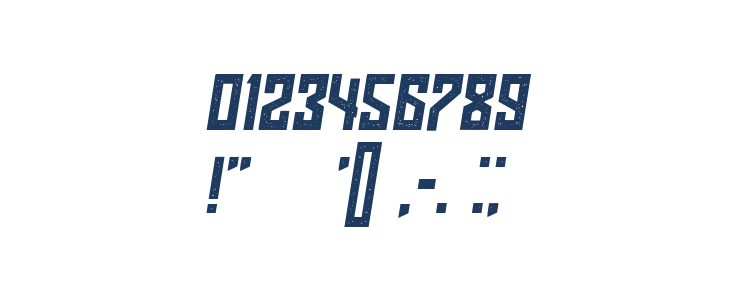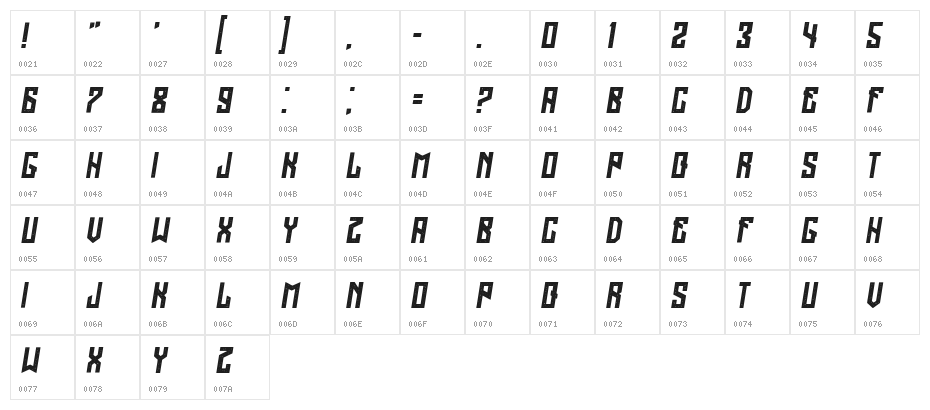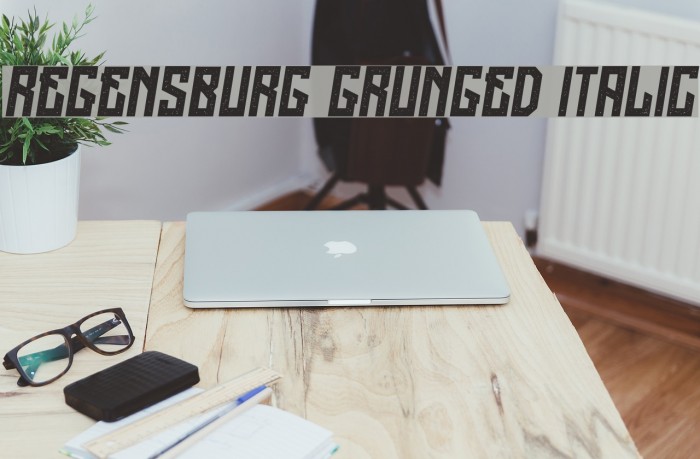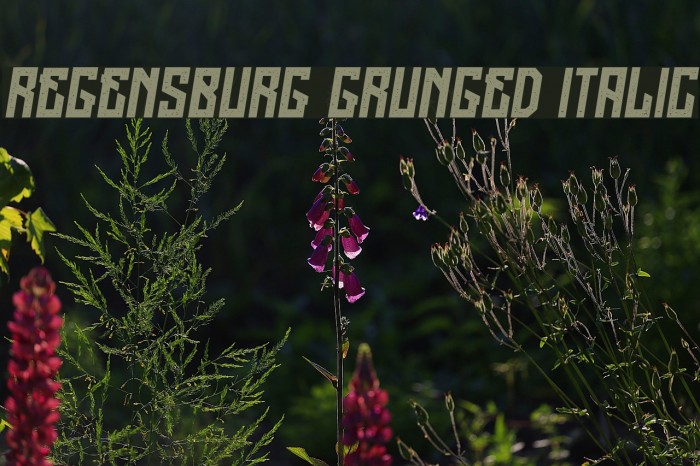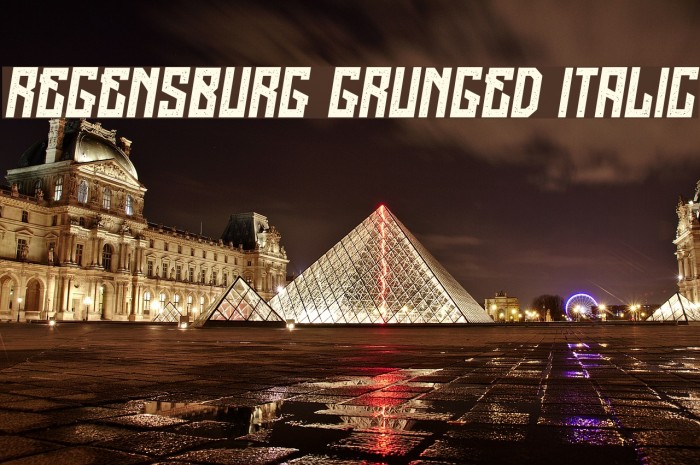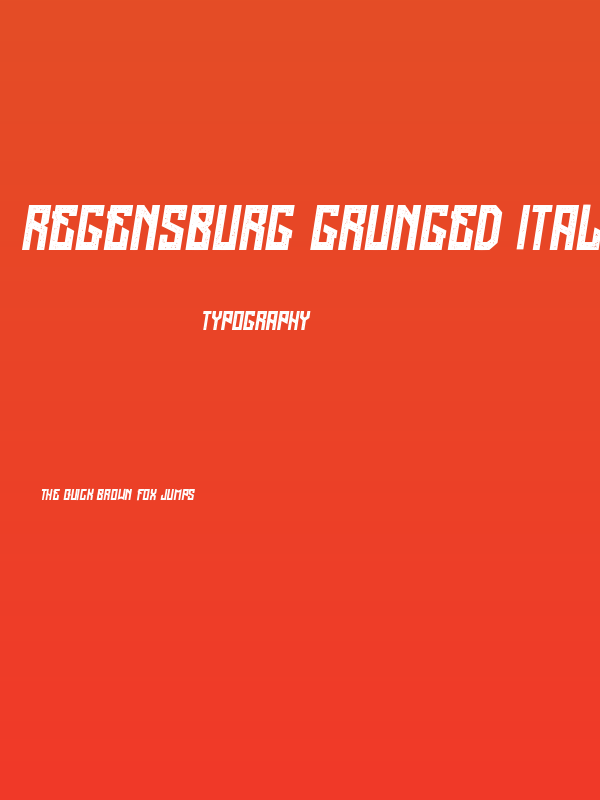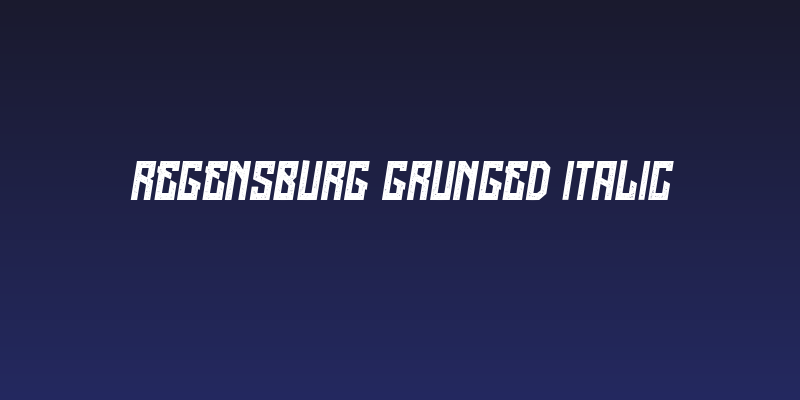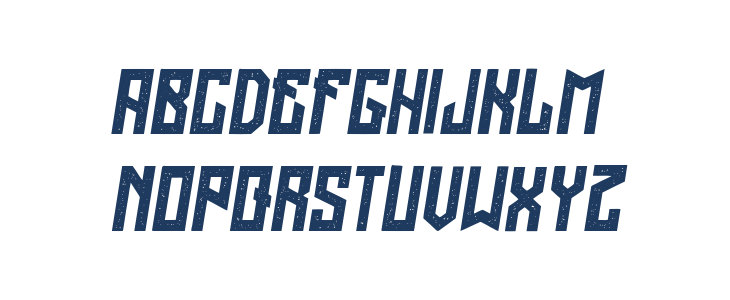
Regensburg Grunged Italic Font
Regensburg Grunged Italic Description
This font features a bold, angular design with a distinct grunge texture that adds a rugged, distressed appearance. The italic slant gives it a dynamic and forward-moving feel, while the geometric shapes of the letters maintain a structured and modern aesthetic. The uppercase and lowercase letters are consistent in style, with sharp edges and a uniform width. The numbers and special characters follow the same design principles, ensuring a cohesive look across all elements. The grunge texture is evenly distributed, providing a unique character without overwhelming the readability.
| Overall Style | Modern, Grunge |
| Proposed Projects | Ideal for edgy branding, music album covers, streetwear designs, and posters that require a bold statement. |